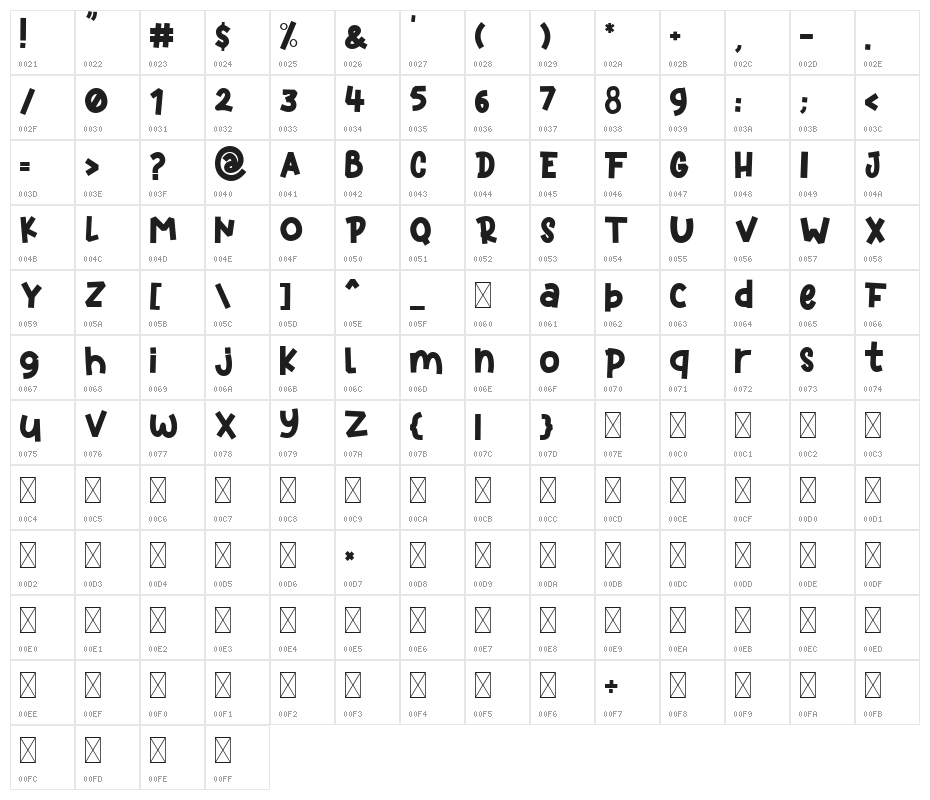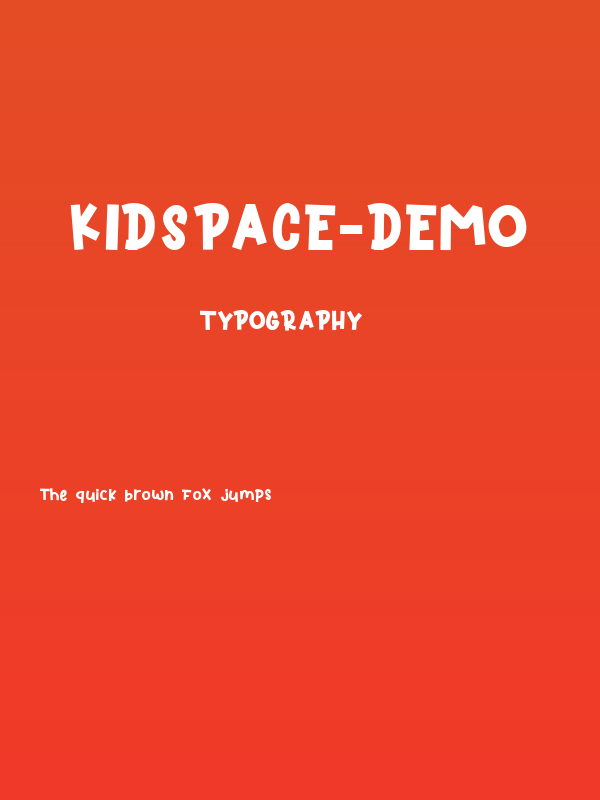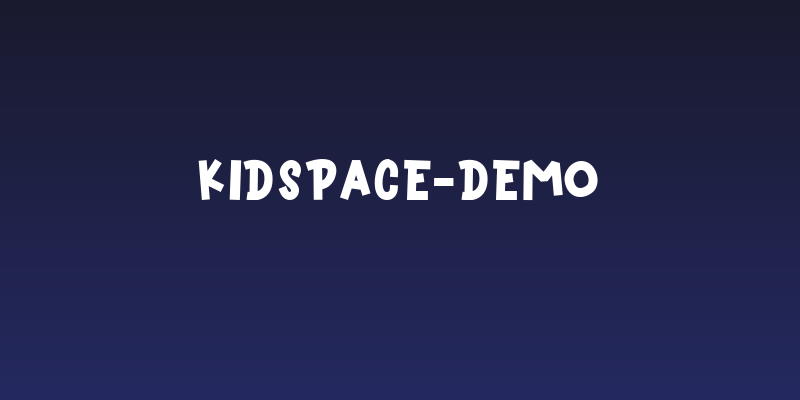
Kidspace-DEMO Font
Kidspace-DEMO Description
This playful and whimsical font features bold, rounded characters with a slightly irregular baseline, giving it a hand-drawn appearance. The uppercase and lowercase letters are distinct yet harmonious, with a consistent stroke width that adds to its friendly and approachable style. The numerals and special characters maintain the same lively aesthetic, making it suitable for a variety of creative applications. The font's unique charm lies in its ability to convey a sense of fun and creativity, making it ideal for projects aimed at children or those seeking a lighthearted tone.
| Proposed Projects | Ideal for children's books, educational materials, playful branding, and creative posters. |